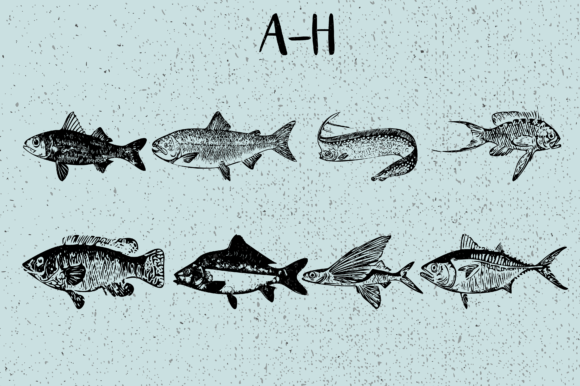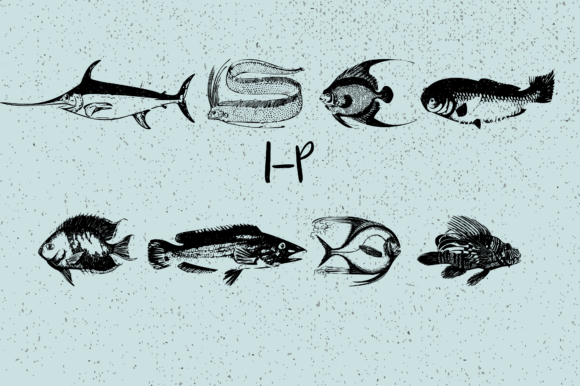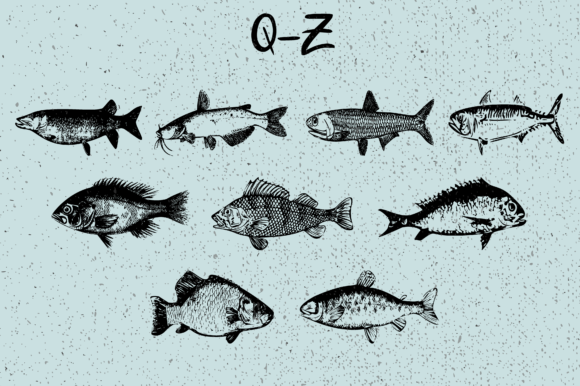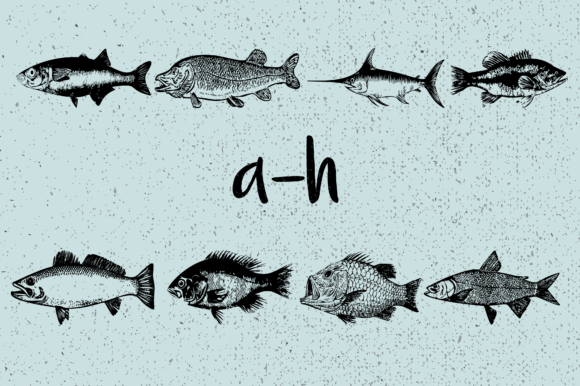
La Mer Font
About La Mer Font
La Mer is an impressive and versatile dingbats font that can enhance a wide range of projects. With its cool and useful design, this font is sure to make your creative ideas stand out. Whether you’re working on digital designs, print materials, or crafts, La Mer is a valuable addition to your font library.
The unique and eye-catching glyphs in La Mer can be used in various contexts, allowing you to match them to a diverse set of projects. Whether you’re designing a logo, creating social media graphics, designing invitations, or working on other creative endeavors, La Mer offers a wide range of options.
The beauty of La Mer lies in its ability to add an extra touch of visual interest and elegance to your designs. The carefully crafted symbols in this dingbats font capture the essence of the sea, with motifs inspired by waves, shells, and other elements of the ocean. This makes La Mer particularly suitable for projects related to marine themes, coastal aesthetics, or even summer-inspired designs.
To use La Mer, simply type the corresponding letters or numbers to generate the desired glyphs. Explore the various symbols and experiment with different combinations to create captivating compositions. The versatility of La Mer allows you to use it in both decorative and functional ways, making it a valuable tool for any creative project.
Whether you’re working on branding, marketing materials, stationery, or any other project that could benefit from a touch of uniqueness and elegance, La Mer is a font that will elevate your designs. Its cool and useful design will capture the attention of viewers and add a special flair to your creative ideas.
In conclusion, La Mer is a cool and useful dingbats font that can be matched to a wide range of projects. With its captivating symbols inspired by the sea, this font adds an extra touch of elegance and visual interest to your designs. Explore the possibilities of La Mer and notice how it makes your creative ideas stand out in a unique and impressive way.